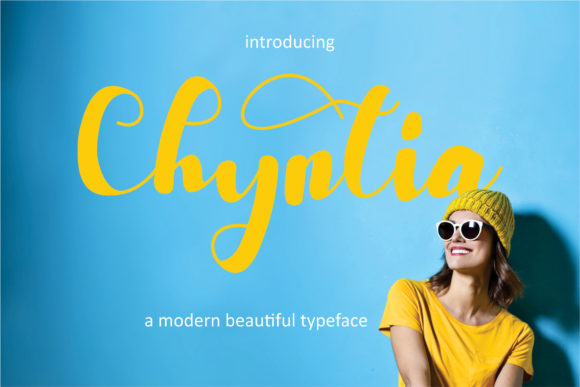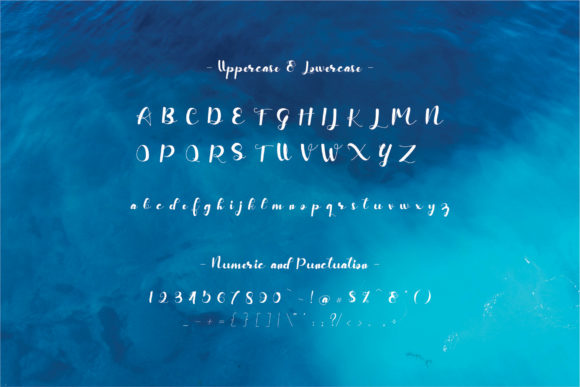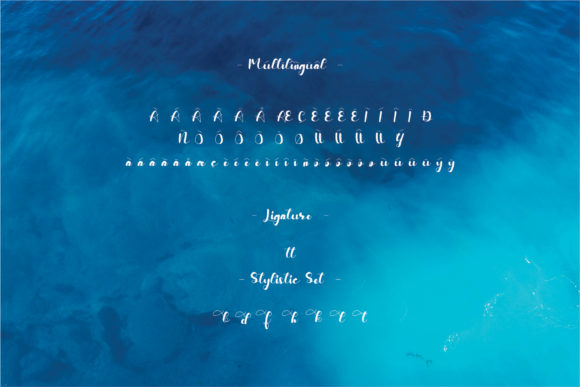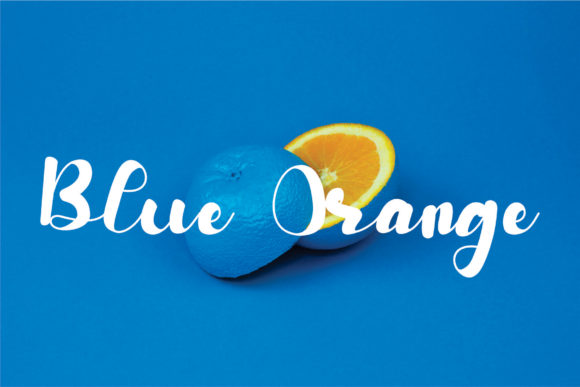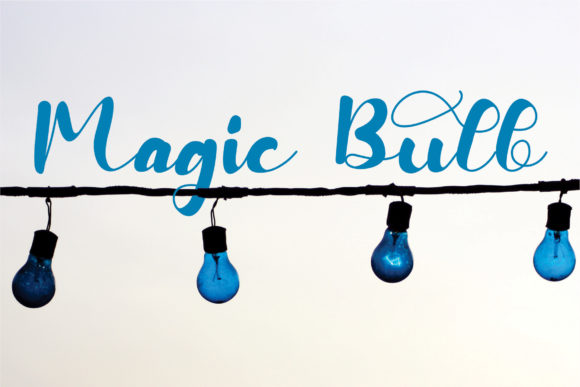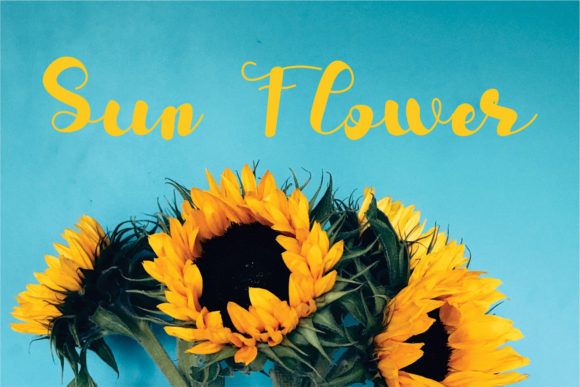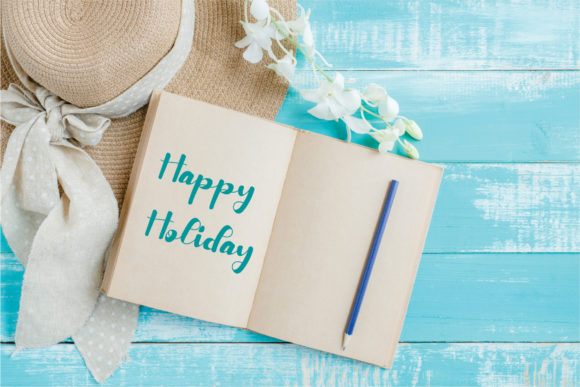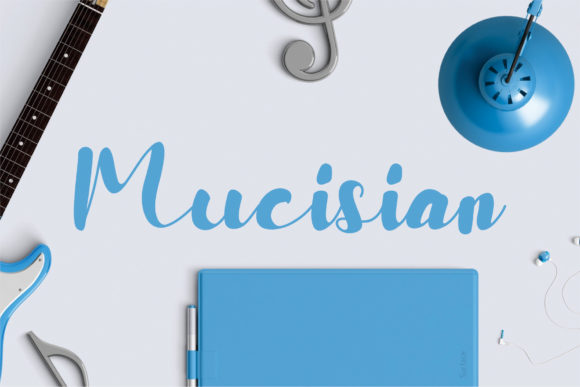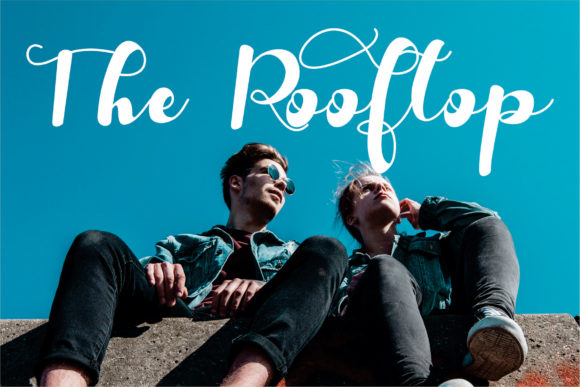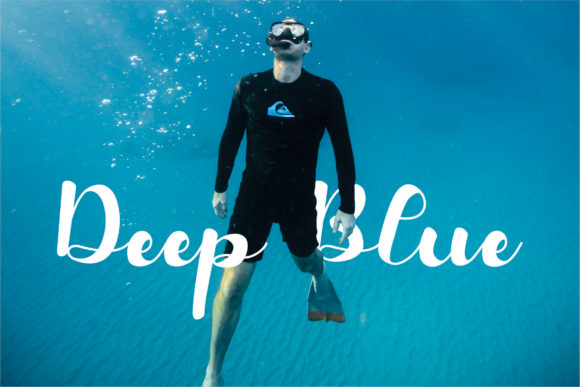
Chyntia Font
About Chyntia Font
Chyntia is a beautiful modern script font, with a charming mix of elegance and freshness! It features gorgeous swashes and ligatures that make this script incredibly versatile. Use it to make original and outstanding designs; be it branding, headings, wedding designs, invitations, signatures, logos, labels, and much more!